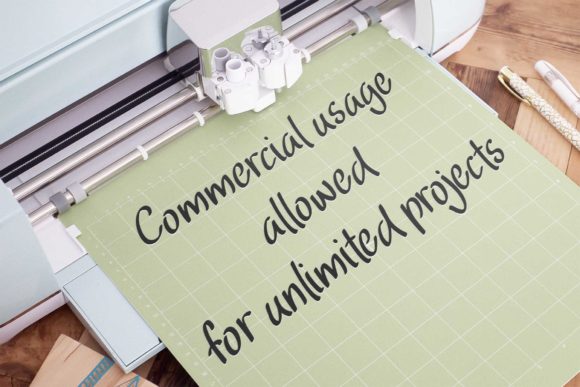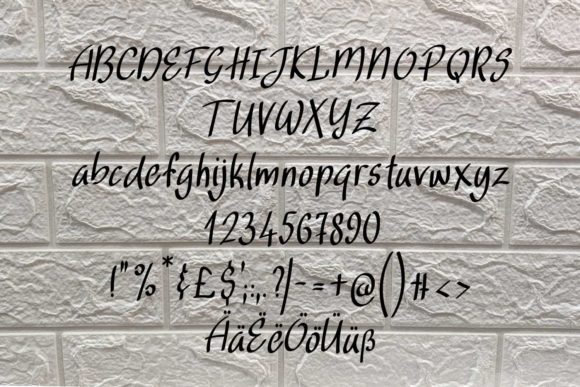
Rystabel Font
db-ku.com - Script & Handwritten -- Rystabel is a carefully crafted handwritten stencil font. Suitable to a wide variety of designs due to its neat and simple style, this font has the potential to become your favorite go-to font, no matter the occasion!